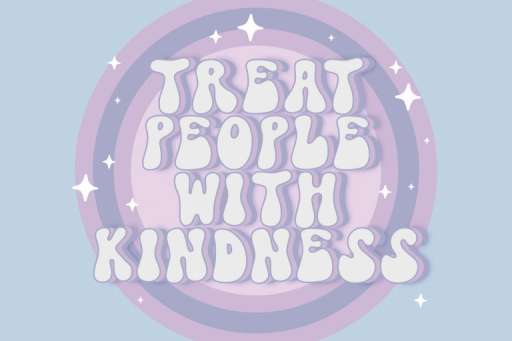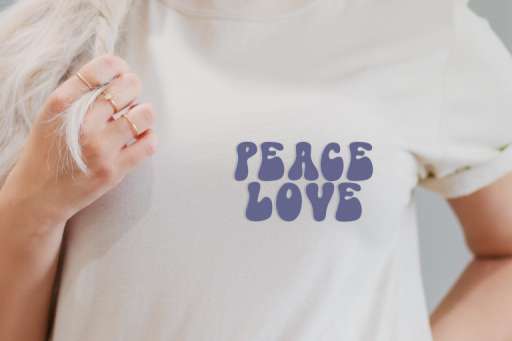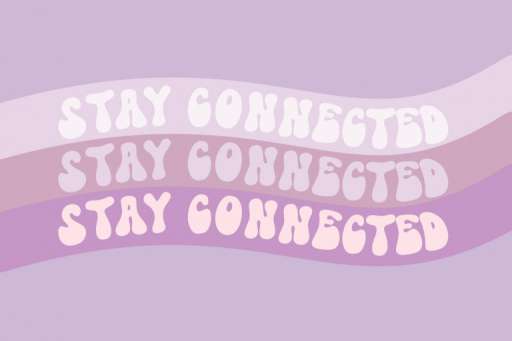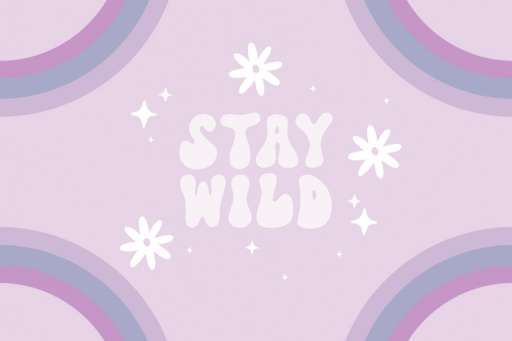
Stay Vibes - Groovy Business Font Jimtype Studio
Stay Vibes Font
Stay Vibes – Retro 70’s Font
Stay Vibes is a groovy font, it is perfect for branding, vintage design, logo, quotes, web, and many projects. Stay Vibes include lowercase and uppercase (All Caps Characters), numbers, and punctuation.
Stay Vibes Features :
• Multilingual